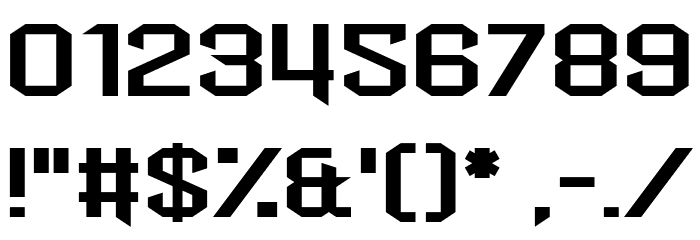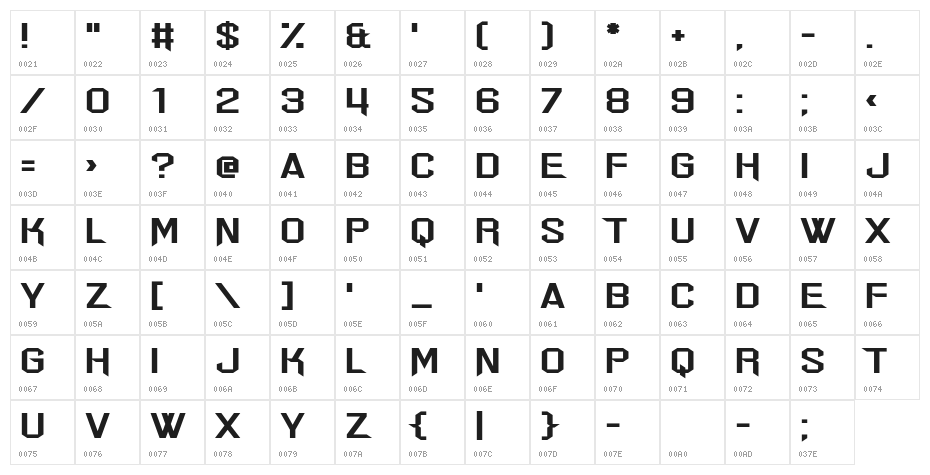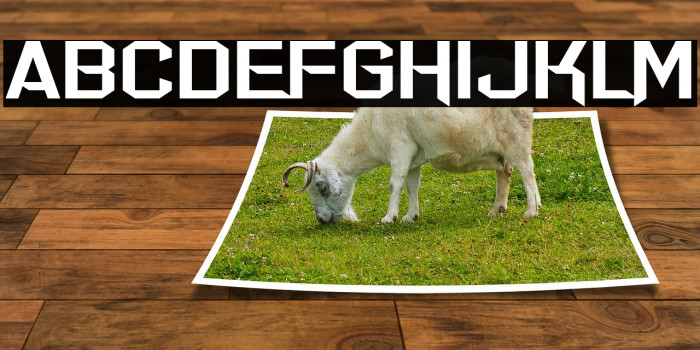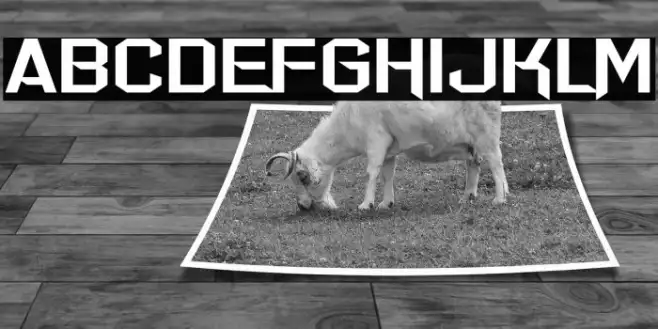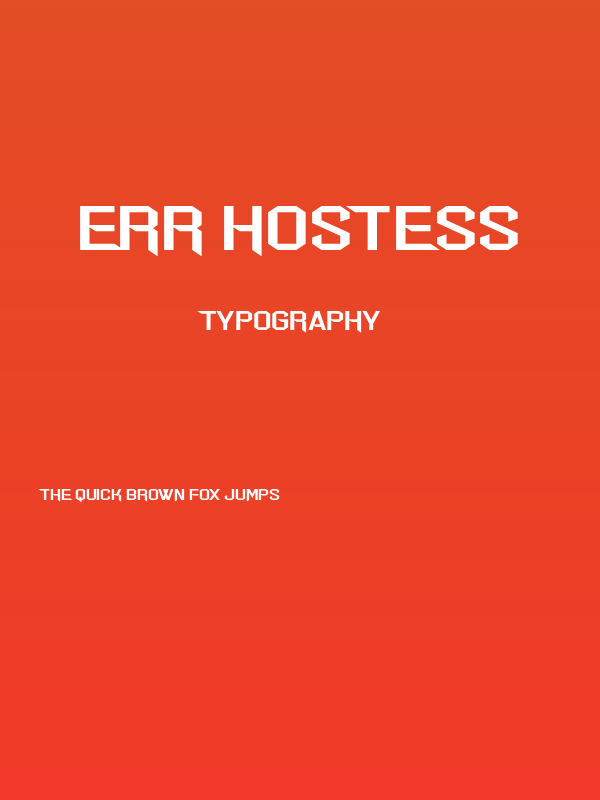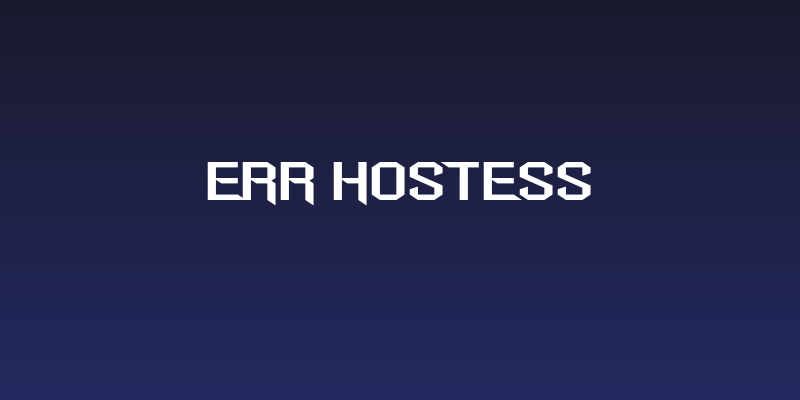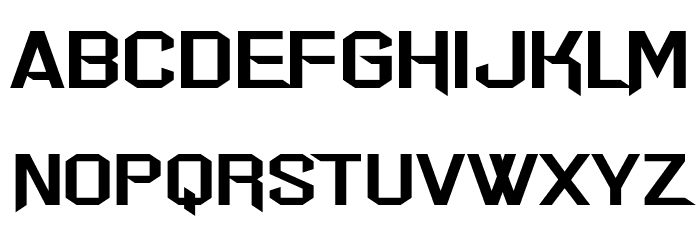
Err Hostess Font
Err Hostess Description
This font features a bold, geometric design with sharp angles and a futuristic aesthetic. The characters are constructed with a consistent thickness, creating a uniform appearance across all letters and numbers. The uppercase and lowercase letters maintain a similar style, emphasizing the font's cohesive look. The numerals and special characters are designed to match the angular and modern feel of the alphabet, making it suitable for projects that require a strong visual impact. The font's unique style is ideal for creating eye-catching headlines, posters, and branding materials that demand attention.
| Proposed Projects | Ideal for headlines, posters, branding, and any project needing a strong visual impact. |